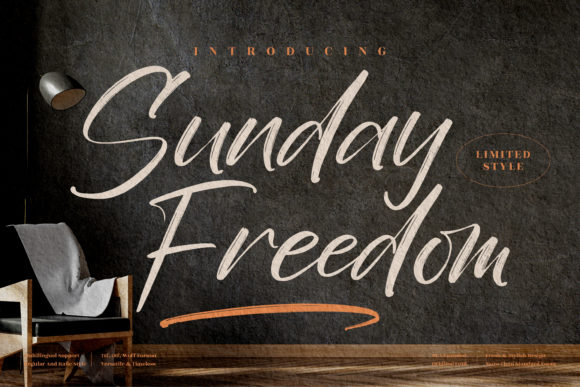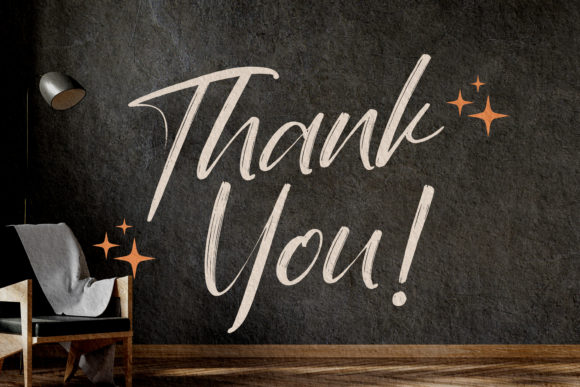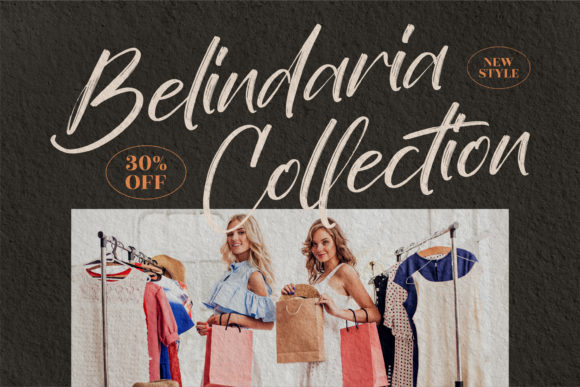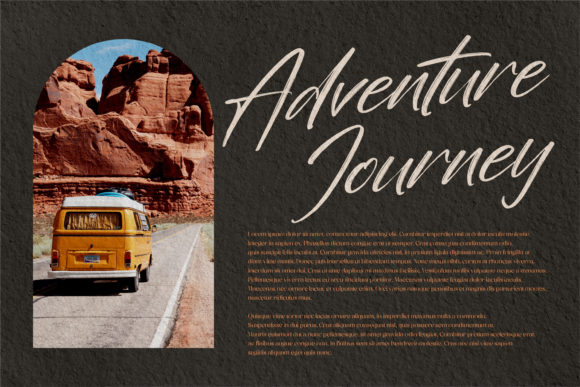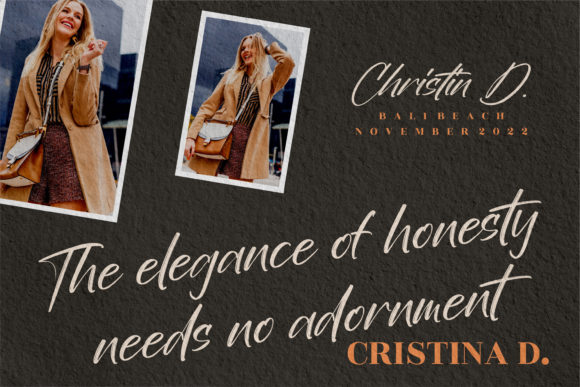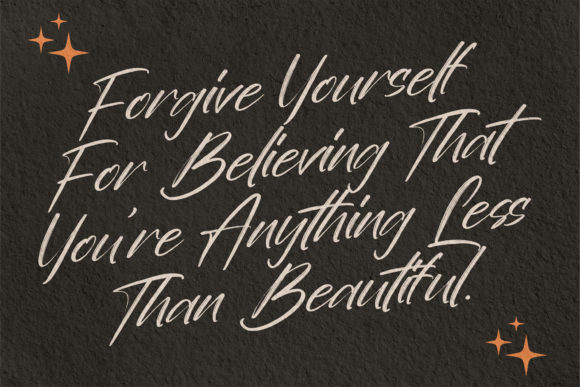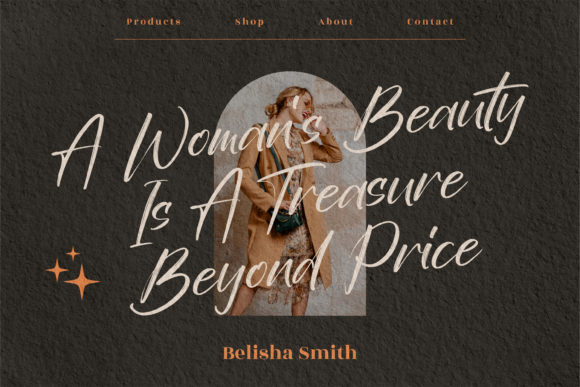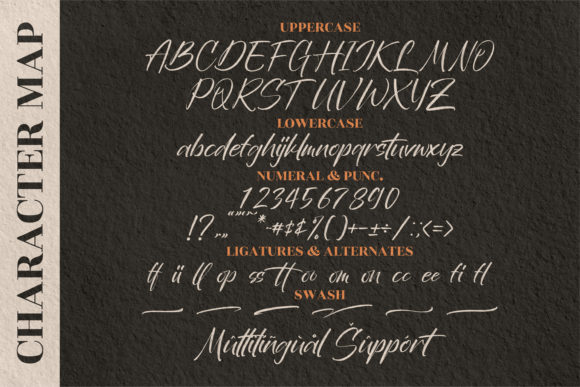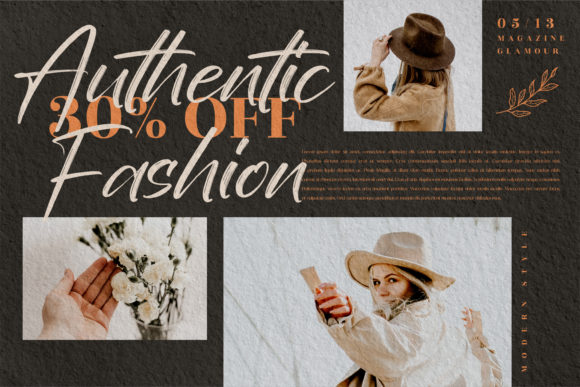
Sunday Freedom Font
About Sunday Freedom Font
Sunday Freedom is a lovely and delicate script font that exudes elegance and class. This font was particularly crafted for those who need a beautiful and refreshing look to their designs.